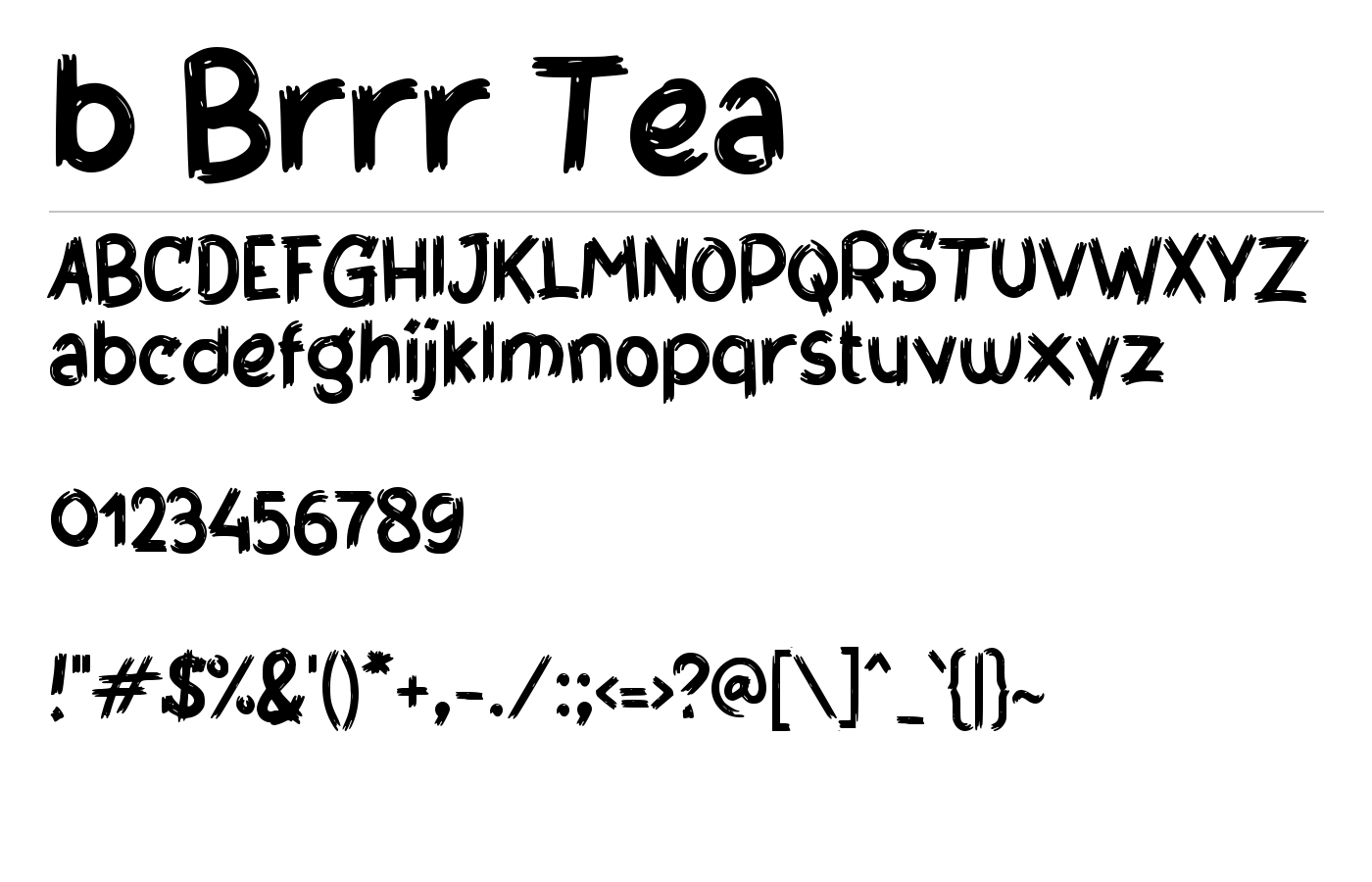
Brrr Tea is a playful and casual sans serif font with a hand-drawn, brushstroke texture that gives it a lively and energetic feel. Its irregular shapes and slightly rough edges add a friendly and informal character, making it perfect for creative projects, children's materials, and bold headlines that require a fun and approachable vibe. This font works well in branding, posters, and digital content where a touch of personality and spontaneity is desired.
b Brrr Tea Font